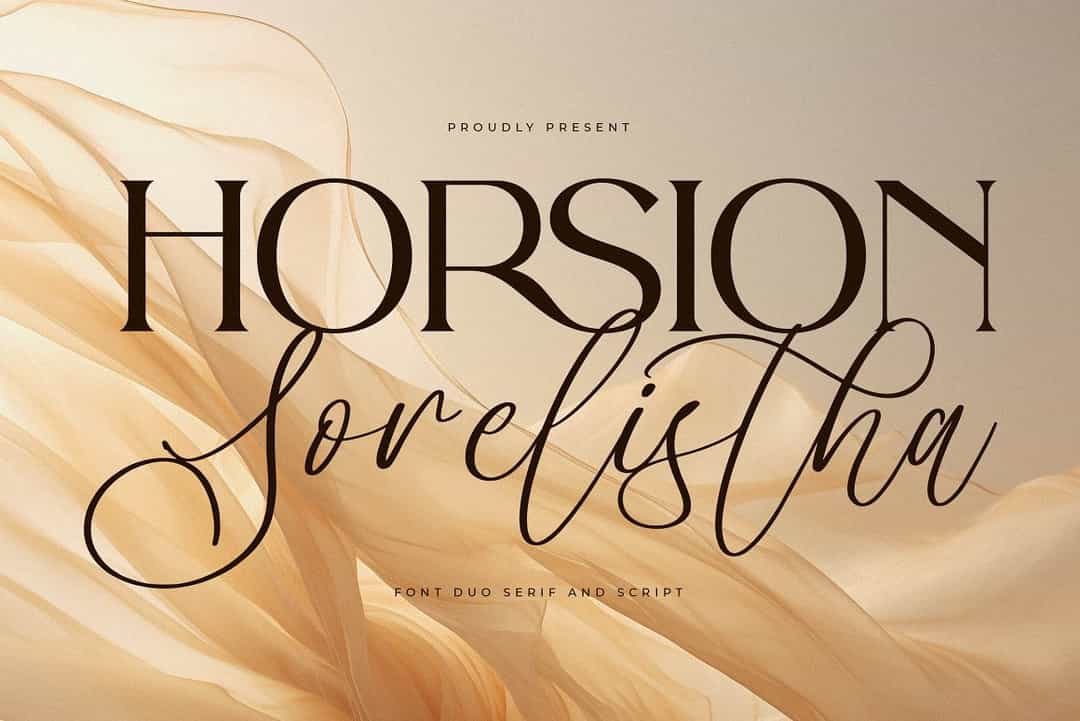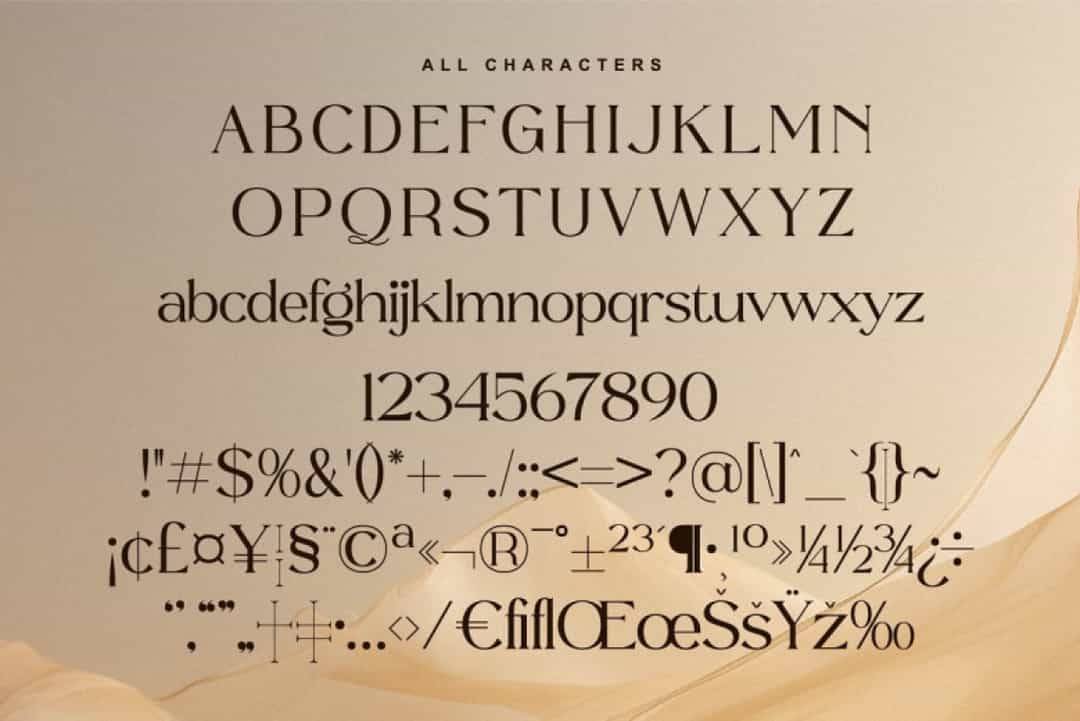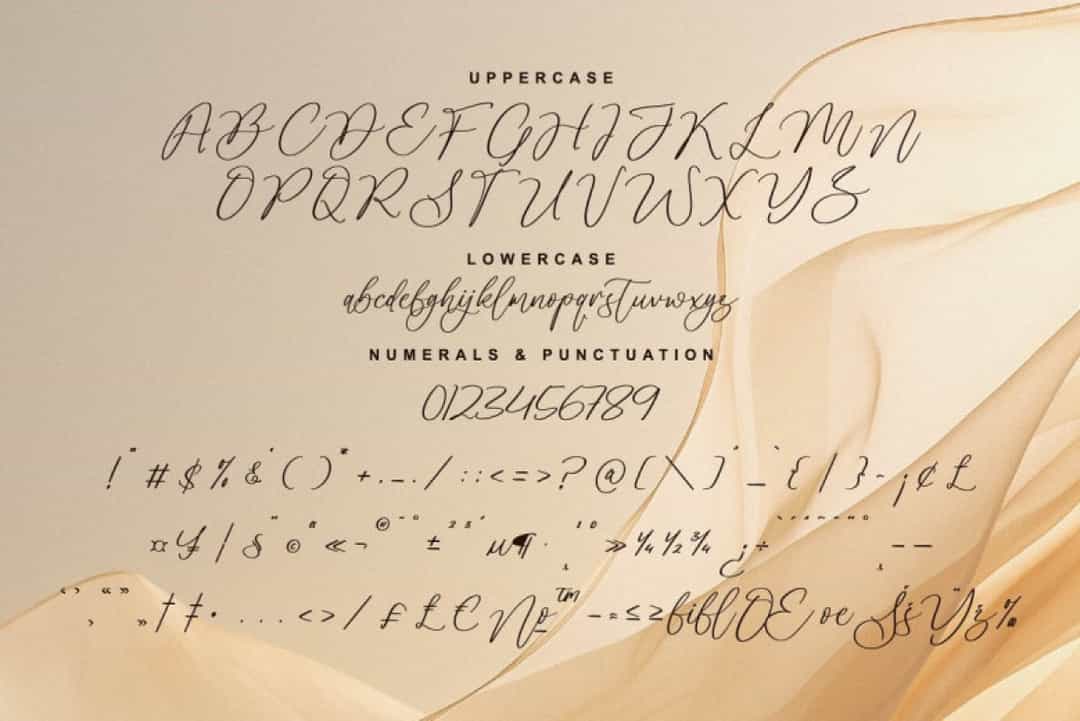
Discover Horsion Sorelistha Font, part of the Handwritten Serif collection—a versatile and unique font perfect for adding a personal touch to your projects. Download it for free and enjoy crafting designs with style, from invitations to social media posts. This font is available exclusively for personal use, giving you the freedom to create without limits. Unlock your creativity with Horsion Sorelistha Font today!
Horsion Sorelistha Font Duo from Storytype offers a serif and script font combination that has its own distinct style and contemporary appeal, ideal for creating classy logos, movie, book title design fashion brands magazines letters clothing quotes and much more.